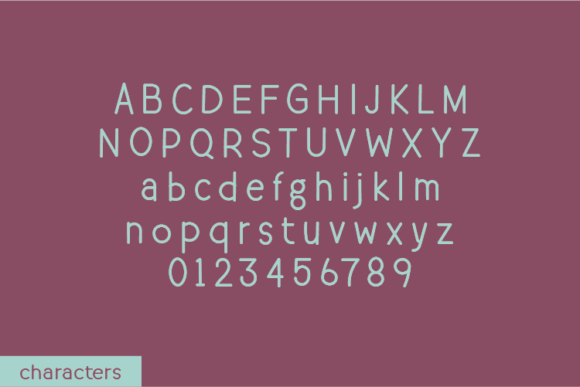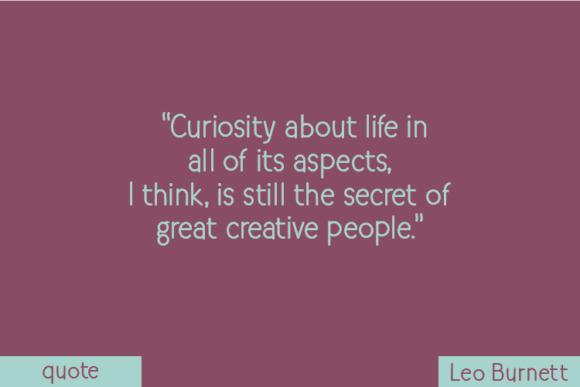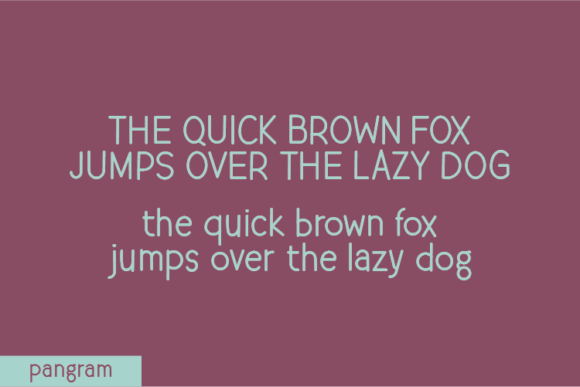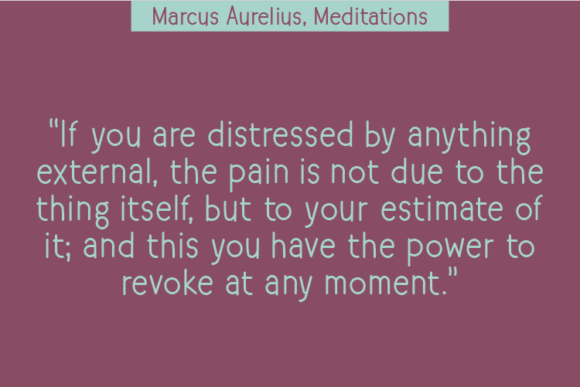
Introducing Domestight Font: The Unique Handwritten Font for Creative Designs
In the world of typography, fonts play a crucial role in conveying the tone and personality of a design. For designers and crafters, finding the perfect font can make all the difference in creating visually appealing and effective designs. If you’re on the hunt for a unique and natural handwritten font, look no further than Domestight Font. In this article, we’ll explore the features and benefits of Domestight Font, and why it’s perfect for quotes, notes, tees, and product design.
What is Domestight Font?
Domestight Font is a natural handwritten font that boasts a distinctive characteristic: it’s made without changing a single node in each character’s indentation. This means that every letter, curve, and line is carefully crafted to create a truly organic and authentic look. The result is a font that’s not only beautiful but also unique and eye-catching.
The Unique Feature of Domestight Font
The standout feature of Domestight Font is its unwavering commitment to preserving the natural indentation of each character. This approach sets it apart from other handwritten fonts, which often rely on adjustments and tweaks to achieve a uniform look. By leaving the nodes intact, Domestight Font retains a sense of human imperfection, making it feel more approachable and relatable.
Perfect for Quotes, Notes, and Designs
Domestight Font is incredibly versatile and can be used in a variety of design applications. Here are some ideas to get you started:
- Quotes: Add a personal touch to inspirational quotes, sayings, and phrases with Domestight Font’s natural, handwritten style.
- Notes: Use Domestight Font to create beautiful, handwritten notes for journals, planners, and journals.
- T-Shirts and Apparel: Create eye-catching designs for t-shirts, hoodies, and other apparel with Domestight Font’s unique and stylish look.
- Product Design: Incorporate Domestight Font into your product design, packaging, and branding for a distinctive and memorable look.
Benefits of Using Domestight Font
So, why choose Domestight Font for your design projects? Here are some benefits to consider:
- Unique Look: Domestight Font’s natural, handwritten style sets it apart from more traditional fonts.
- Versatility: Use Domestight Font in a variety of design applications, from quotes and notes to t-shirts and product design.
- Easy to Read: Despite its unique style, Domestight Font remains easy to read, making it perfect for body text and captions.
- Time-Saving: With Domestight Font, you can create beautiful designs quickly and efficiently, saving you time and effort.
Tips for Using Domestight Font
To get the most out of Domestight Font, here are some tips to keep in mind:
- Experiment with Sizes: Domestight Font looks great in a range of sizes, from small captions to large headings.
- Play with Colors: Try pairing Domestight Font with different colors and textures to add depth and interest to your designs.
- Mix and Match: Combine Domestight Font with other fonts and styles to create unique and eye-catching designs.
Domestight Font is a game-changer for designers and crafters looking for a unique and natural handwritten font. With its distinctive node-preserving approach, Domestight Font offers a fresh and exciting alternative to traditional fonts. Whether you’re creating quotes, notes, t-shirts, or product designs, Domestight Font is the perfect choice. So why not give it a try and see the difference it can make in your designs?